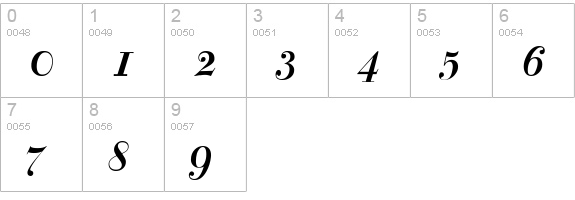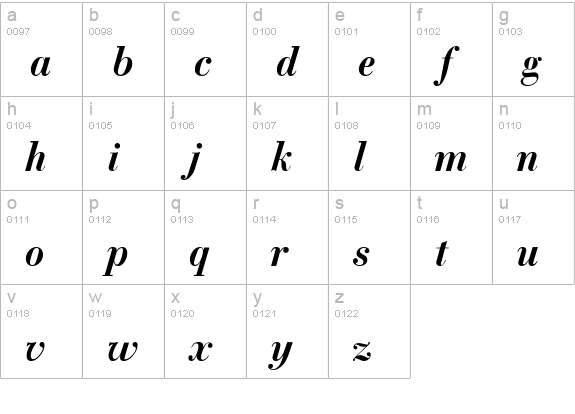
BodoniClassic BoldItalic is a timeless and elegant typeface that exudes sophistication and style. With its bold and slanted design, this font commands attention and adds a touch of luxury to any project. The sleek and refined letterforms make it perfect for conveying a sense of modernity and class. And the best part? BodoniClassic BoldItalic is available for free download at FontsMarket.com. Now you can effortlessly elevate your designs with this stunning font without breaking the bank. Whether you're working on a branding project, editorial layout, or any other design endeavor, BodoniClassic BoldItalic is sure to make a bold statement and leave a lasting impression. Download it today and experience the beauty and versatility of this exquisite typeface.